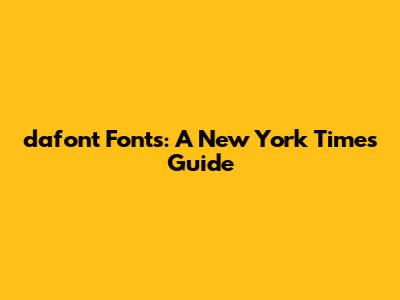
- Vast Selection: Dafont boasts a huge selection of fonts, so you're bound to find something you like, regardless of the project. There's a font for everything, from elegant serif fonts to funky display fonts. This is its biggest selling point for any aspiring designer looking to create content.
- Serif Fonts: New York Times typically uses serif fonts such as Times New Roman and its variations for body text. These fonts are known for their readability and classic look, creating a sense of trust and authority. This is a crucial element if you want to create content that resembles the New York Times aesthetic.
- Sans-Serif Fonts: For headlines and subheadings, New York Times often uses sans-serif fonts such as Helvetica or Gotham. These fonts offer a modern and clean look that contrasts the serif body text, providing visual interest and hierarchy.
- Font Weights and Styles: The use of different font weights (like bold, regular, and light) and styles (like italics) adds emphasis and visual appeal. This helps create a clear hierarchy of information, guiding the reader's eye through the content.
- Consistent Spacing: New York Times pays close attention to spacing, including line spacing, letter spacing, and margins. Consistent spacing is essential for readability and creates a balanced and professional look. This detail is so crucial to the overall effect!
- Explore Categories: Dafont categorizes fonts by style, like Serif, Sans Serif, Script, and Display. To find fonts like the New York Times, start by browsing the Serif and Sans Serif categories. Consider the New York Times's use of a combination of serif fonts for body text and sans-serif fonts for headlines.
- For Body Text:
- EB Garamond: This is a classic serif font that brings a timeless and refined look, similar to Times New Roman. It's great for long-form content.
- Playfair Display: This font combines a serif font in the headline with a modern sans-serif. It is a bold, elegant choice for headings and titles, with a strong contrast when paired with a more neutral body font.
- Lora: A well-balanced contemporary serif that is very readable on screens.
- For Headlines and Subheadings:
- Montserrat: A clean sans-serif font that is great for headlines and subheadings. It provides a modern touch.
- Open Sans: A very popular sans-serif font with a friendly, readable style.
- Lato: A classic sans-serif font is also a good choice, known for its balanced proportions.
- Use Different Font Weights: Make sure your headlines are bold and your body text is regular or light. This contrast helps create a clear hierarchy. This is very important if you want to capture the essence of the New York Times!
- Vary Font Sizes: Headings should be significantly larger than body text. Subheadings should be smaller than headings but larger than body text.
- Consistent Line Spacing: A little extra space between lines can improve readability. The perfect line height makes all the difference.
- Margins and White Space: Use plenty of white space to prevent your content from looking cramped. This makes a huge difference in the overall look.
- Alignment: Use a consistent alignment, like left-aligned or justified, to create a professional look.
- Pairing Fonts: The key is to find fonts that complement each other. A good pairing is a serif font for the body text and a sans-serif font for the headings. This is very important if you want to capture the essence of the New York Times!